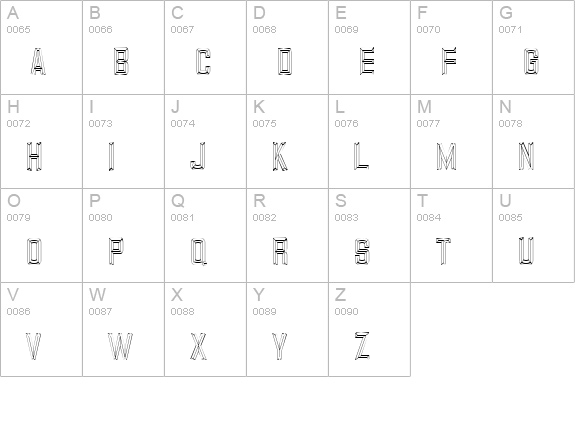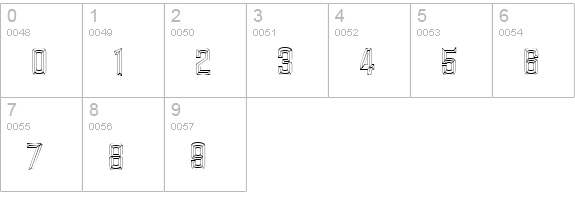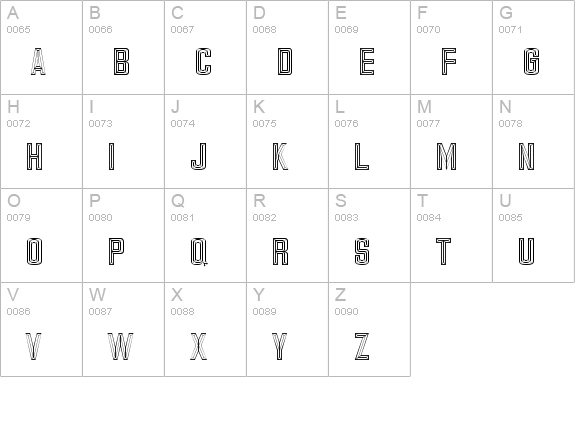
Carplate MN Font Details
Carplate MN font is a sleek and modern typeface perfect for adding a touch of sophistication to your designs. With its clean lines and contemporary feel, this font exudes a sense of elegance and professionalism. The unique character shapes and bold letterforms make Carplate MN font stand out from the crowd, making it ideal for logos, headlines, and branding projects. And the best part? Carplate MN font is available for free download at FontsMarket.com. This means you can easily access this stylish font without breaking the bank. Whether you're a professional designer looking for a versatile typeface or a hobbyist seeking to elevate your creative projects, Carplate MN font is a fantastic choice that won't cost you a dime. Download it today and see how this font can elevate your designs to the next level.